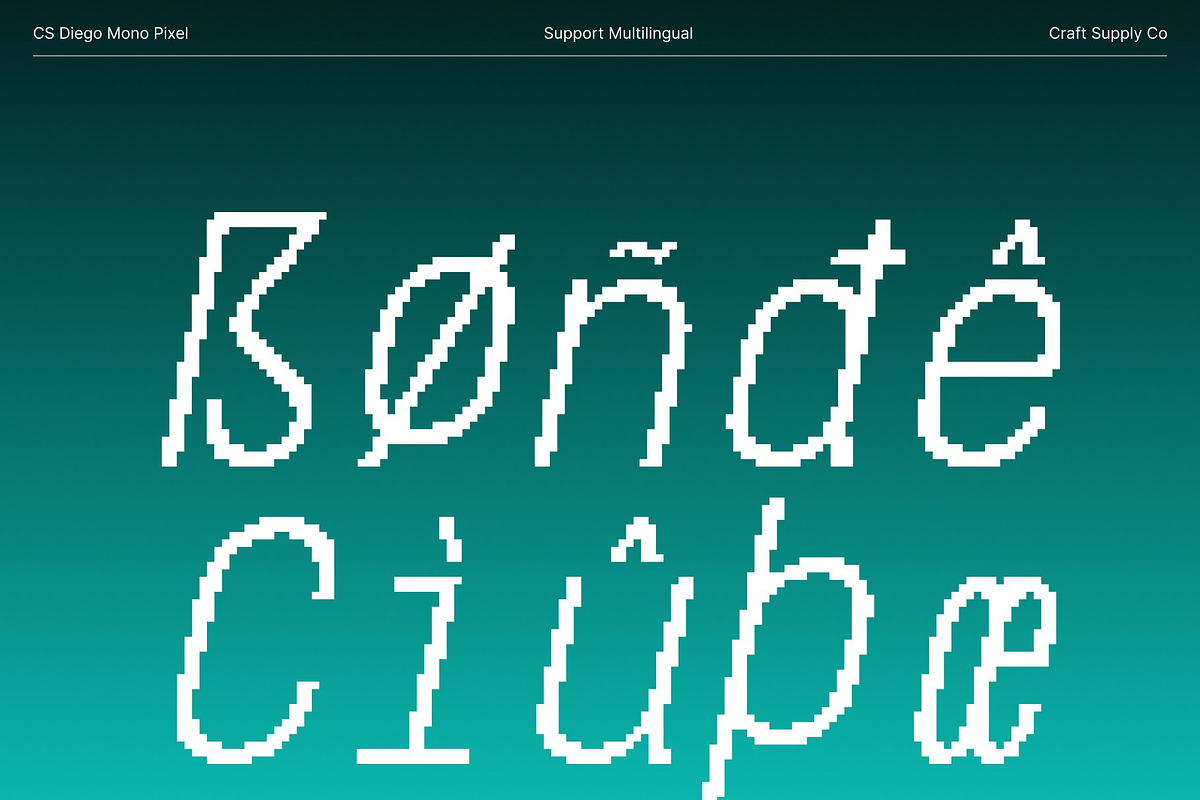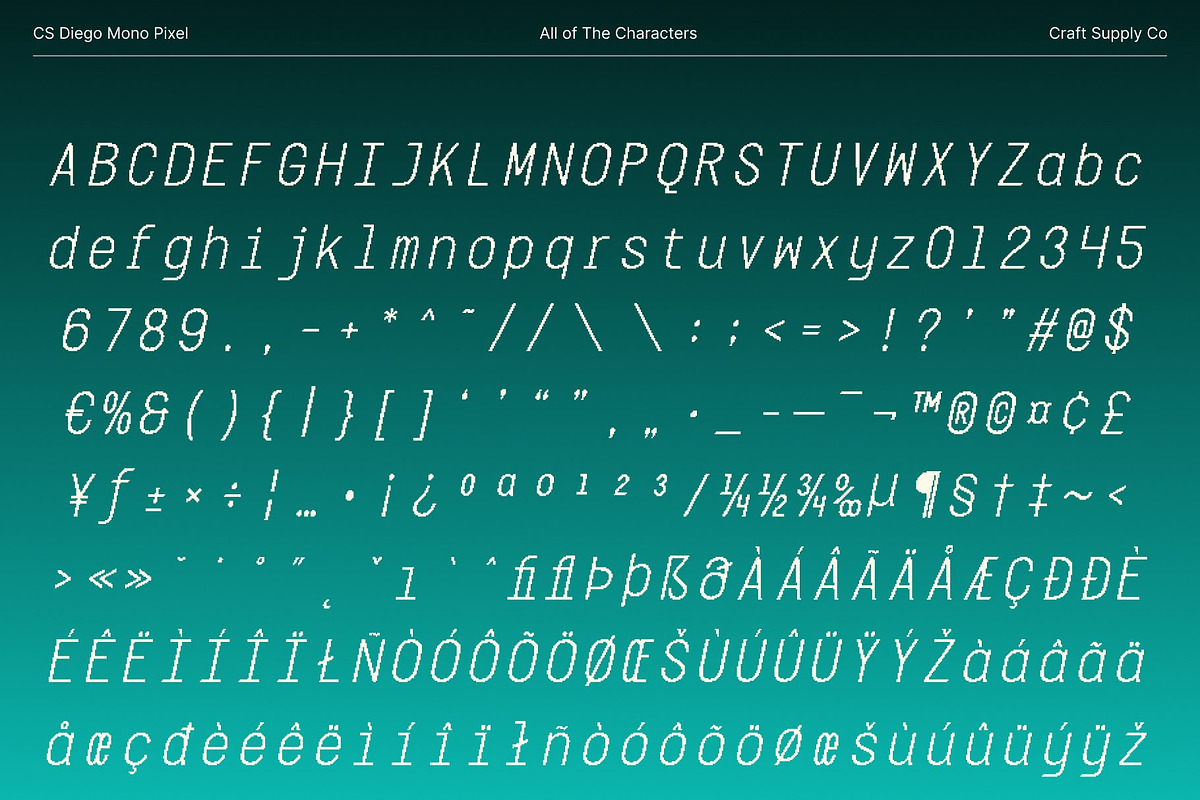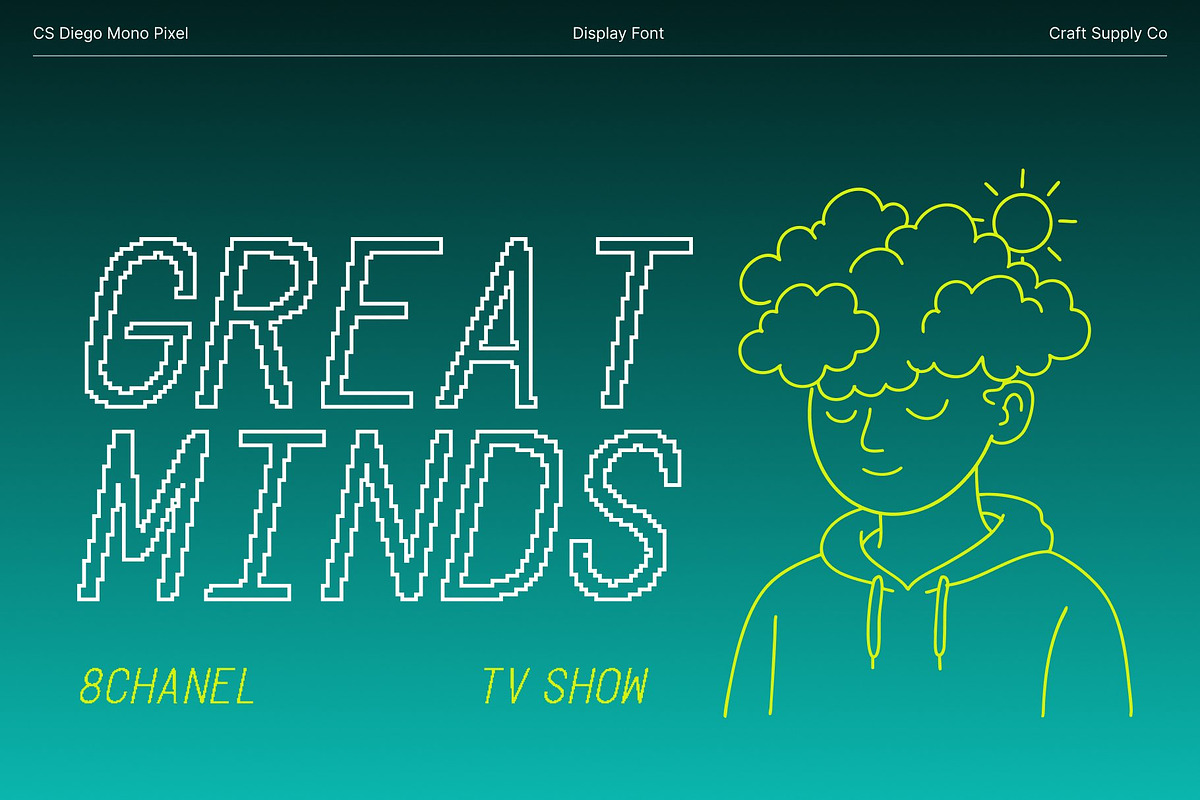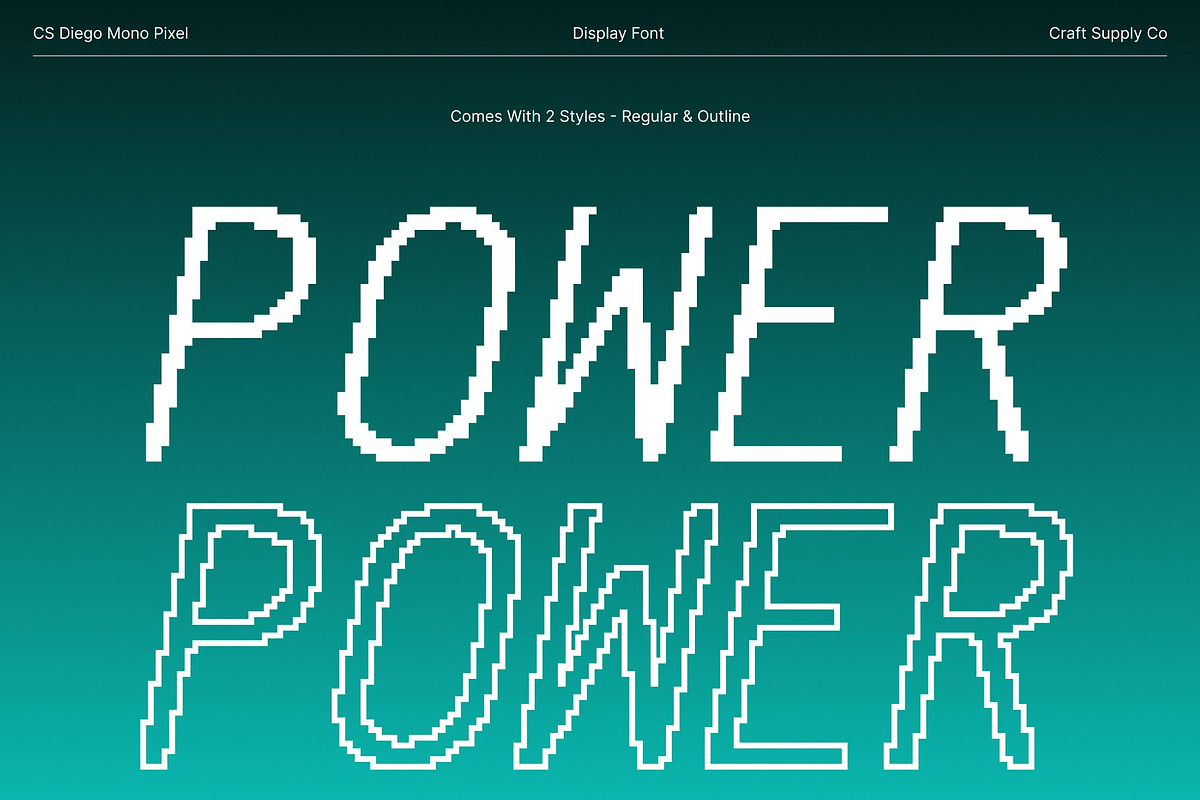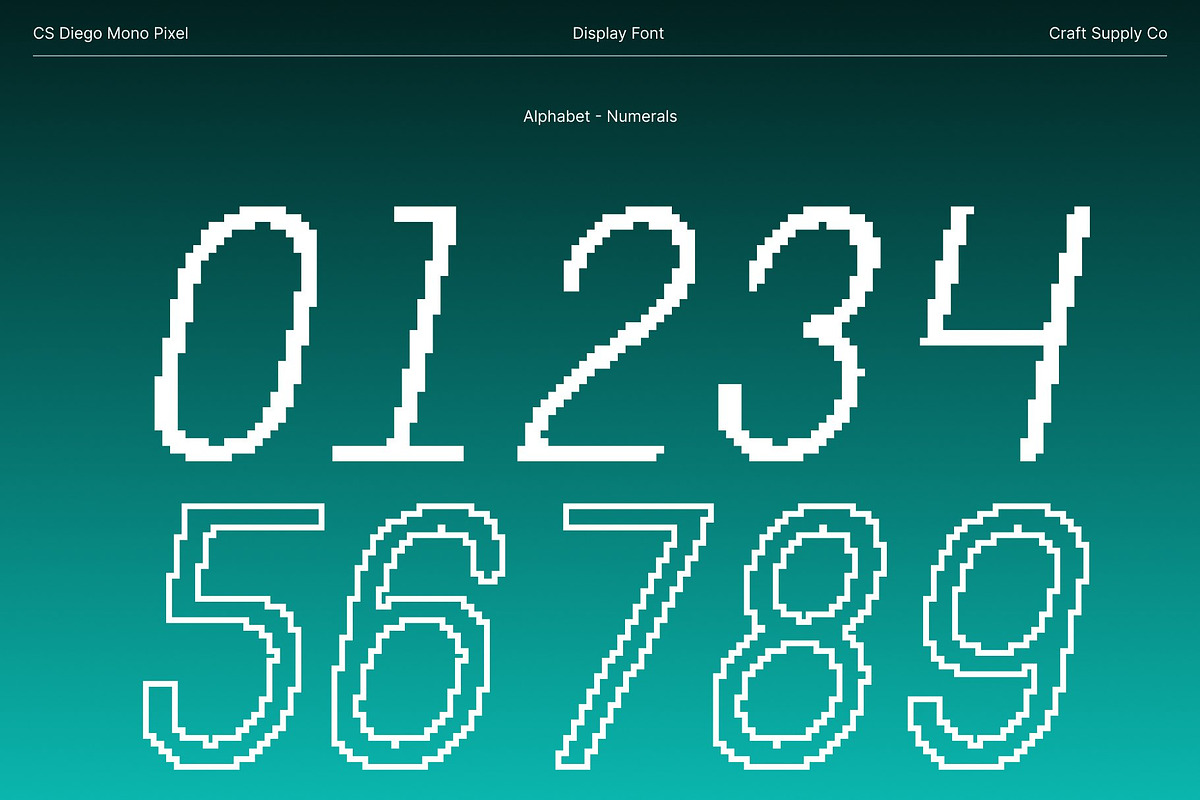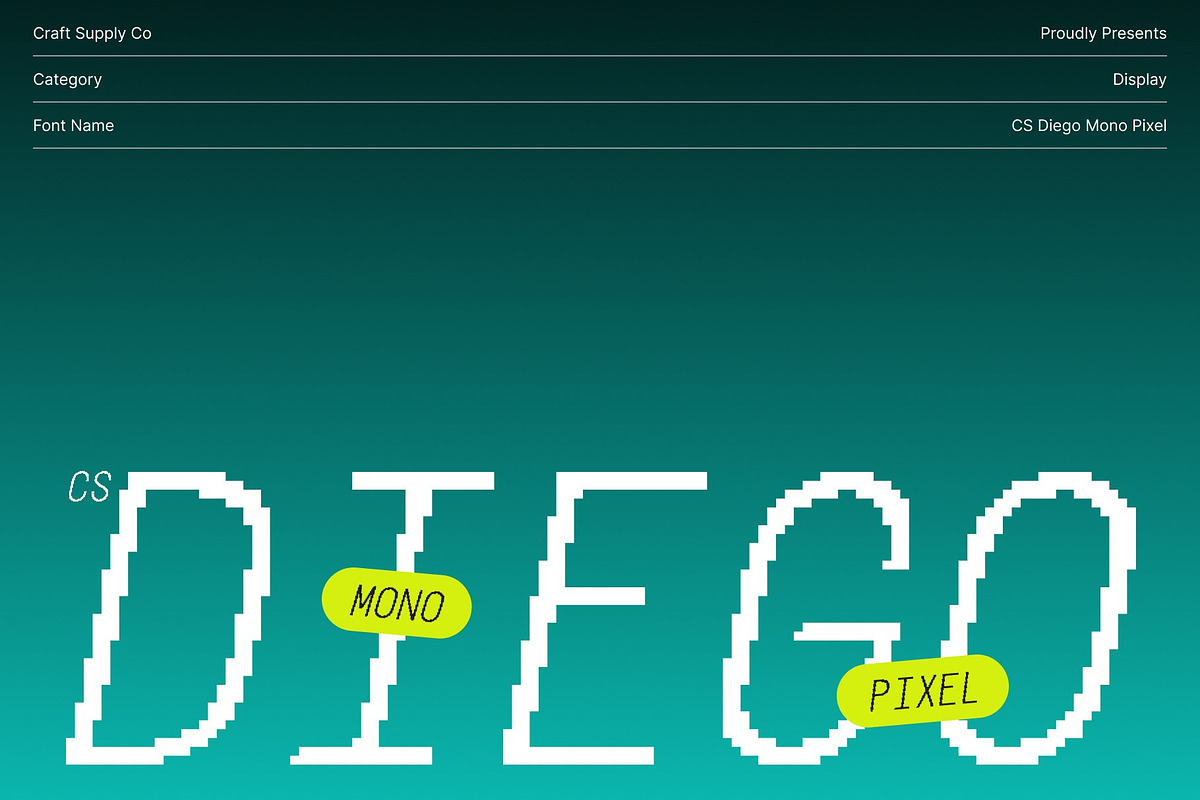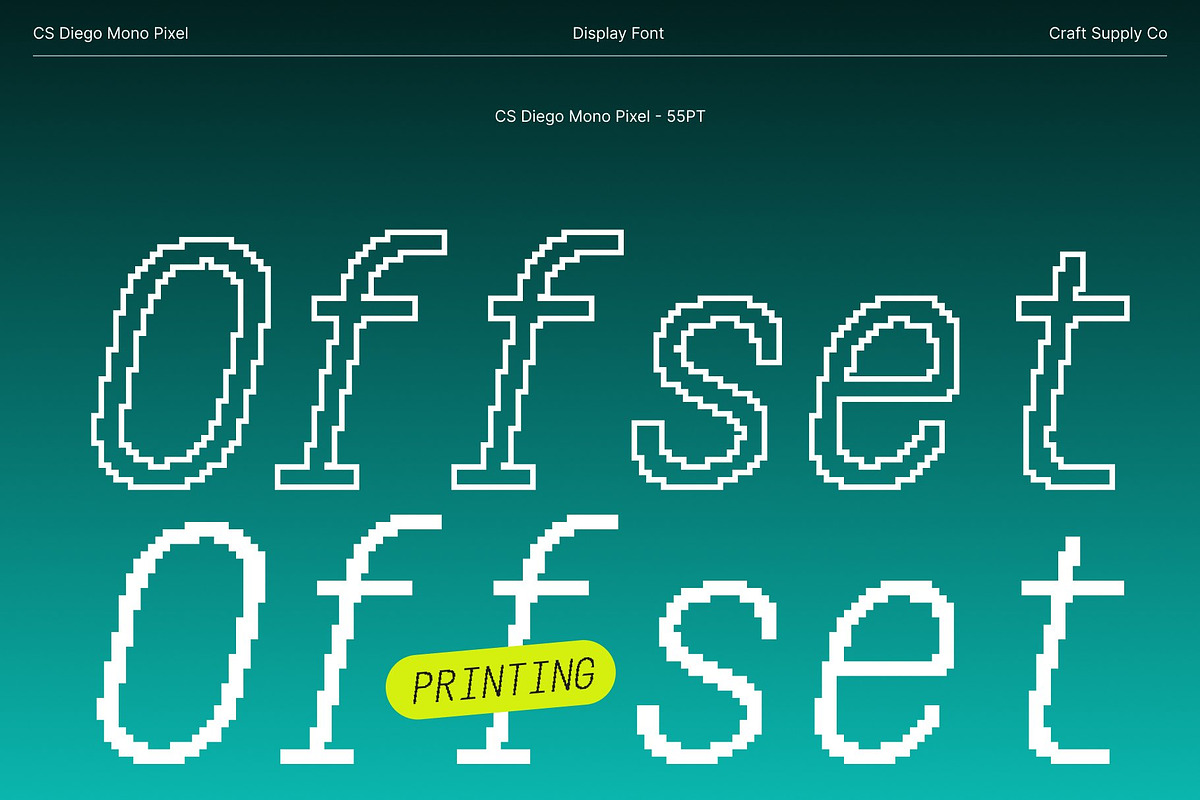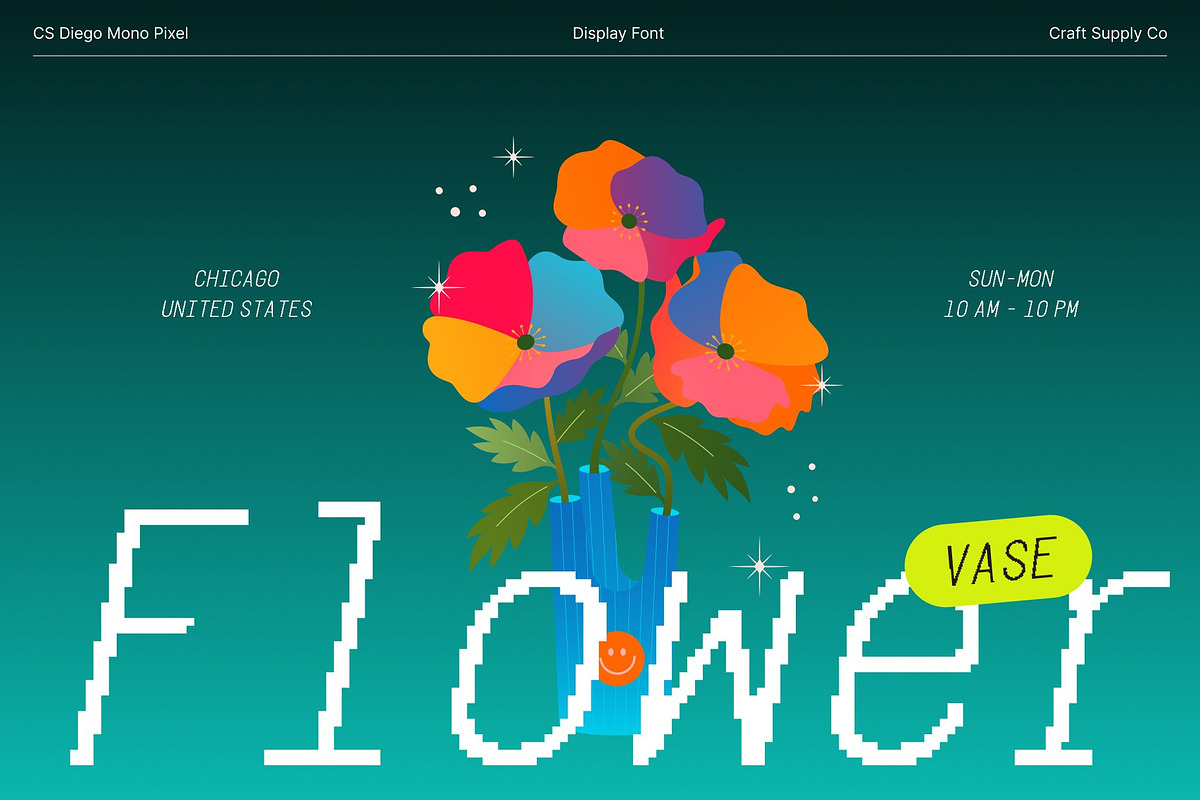
CS Diego Mono Pixel
CS Diego Mono Pixel – Monospace Sans Serif for Clear Digital Readability
Modern Monospace with Pixel Precision This is a modern monospace sans serif typeface designed for clarity, consistency, and digital accuracy. Enhanced with subtle pixel detailing, it reflects the aesthetics of classic computer terminals while maintaining a clean, contemporary structure. This combination makes it ideal for coding environments and digital interfaces that value both function and retro-tech character.
Consistent Character Width for Perfect Alignment Built as a true monospace font, this font ensures every character occupies the same horizontal space. This uniformity is essential for programming, data tables, and technical layouts where alignment and structure matter. The pixel construction reinforces precision, making code blocks and structured text easy to scan and understand.
Clean Sans Serif Design with Retro Digital Feel The sans serif form keeps the font simple, modern, and highly legible. Without decorative serifs, each character remains clear even at small sizes or low resolutions. The pixel detail adds a subtle old-digital charm, evoking early coding screens while staying crisp and readable on modern displays.
Ideal for Programming, UI, and Technical Text Perfect for programming, terminal displays, UI design, and technical documentation, this font preserves formatting and readability across platforms. Beyond code, its modern retro-digital aesthetic also works well for tech branding, dashboards, and experimental digital designs that require clarity with character.
- CS Diego Mono Pixel Regular
- CS Diego Mono Pixel Outline